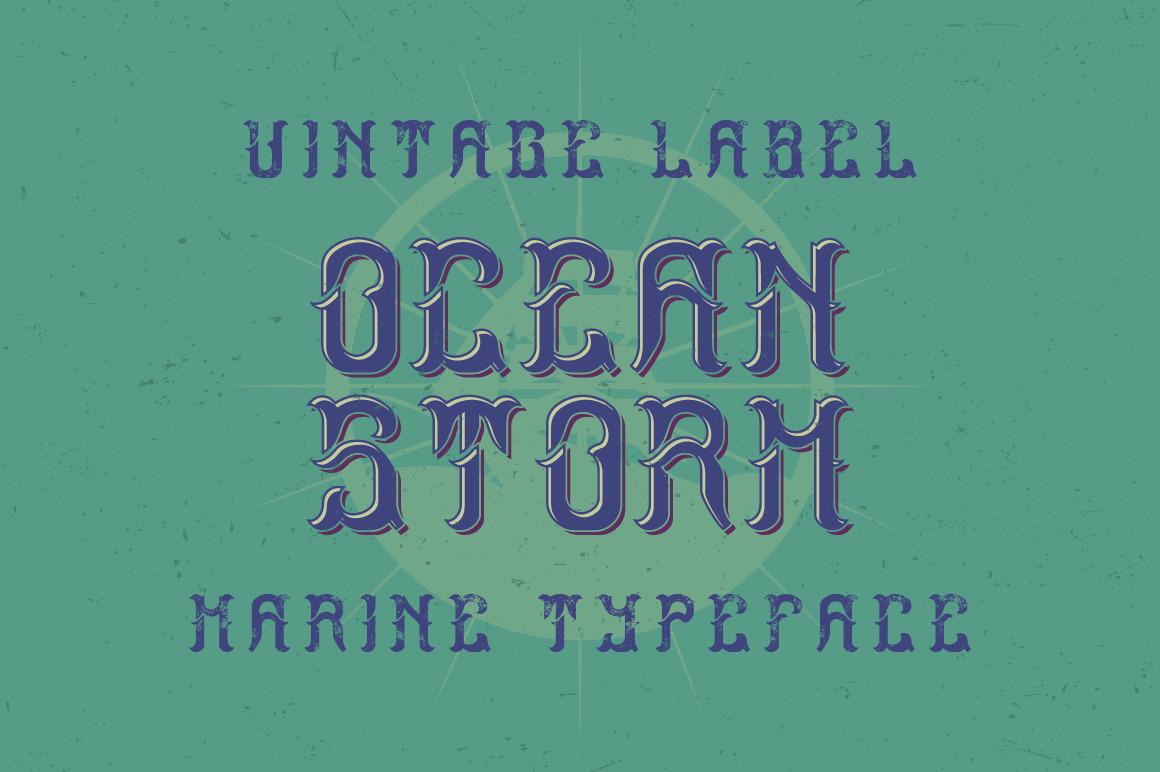
Ocean Storm label font
Introducing a vintage label typeface named "Hipster". It's made in marine and vintage label style. Typeface looks great on any label designs and t-shirts.
- 5 fonts in complect with special effects + aged version
- You can mix color of base font, light and shadow effect (look at 5th screenshot)